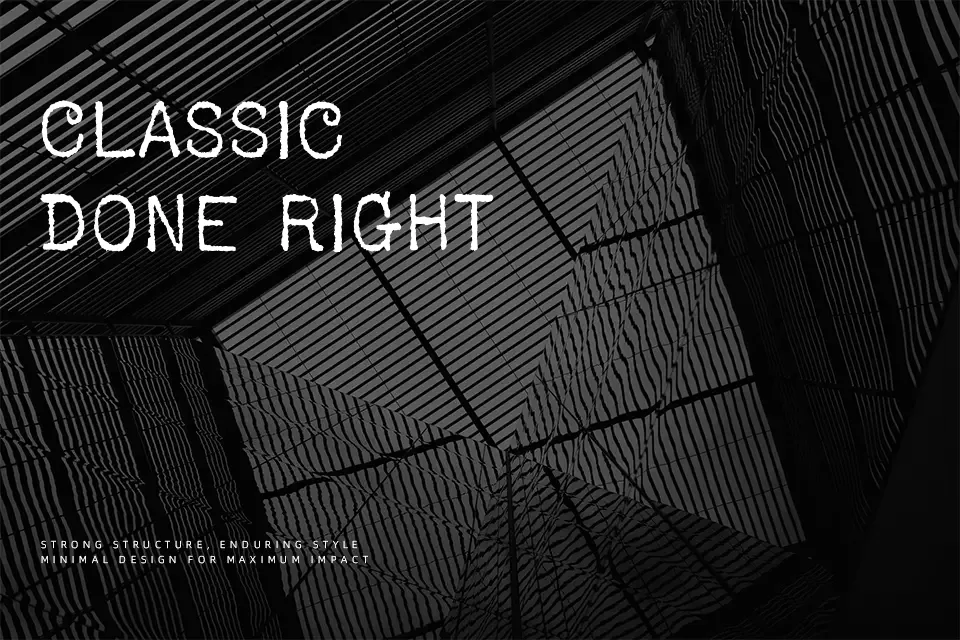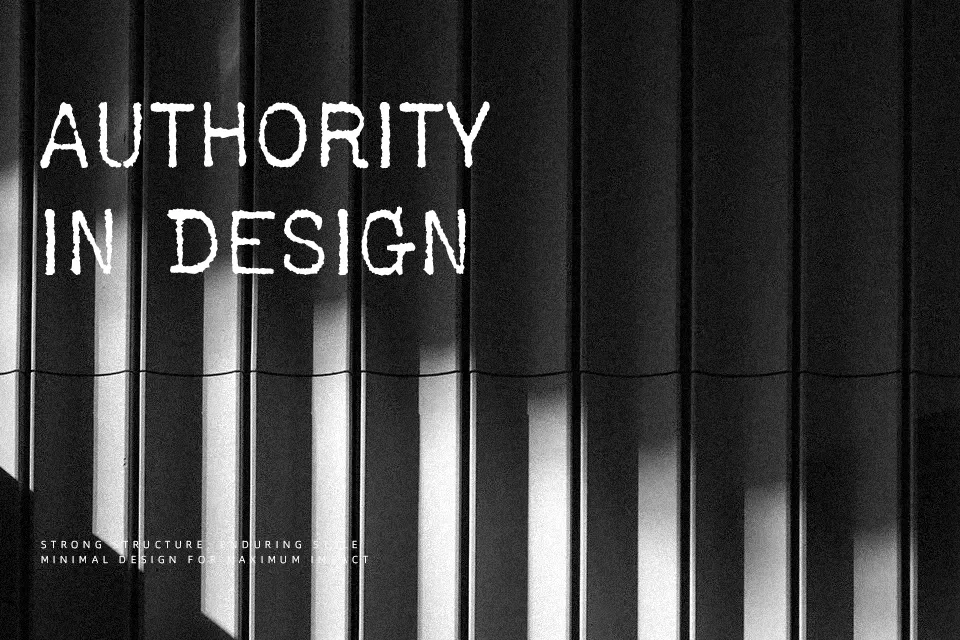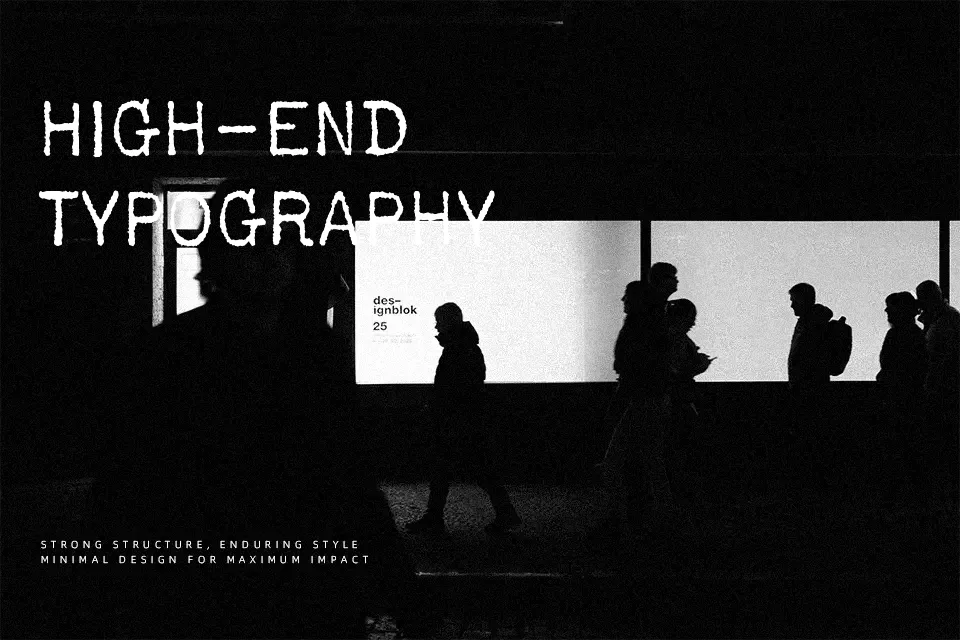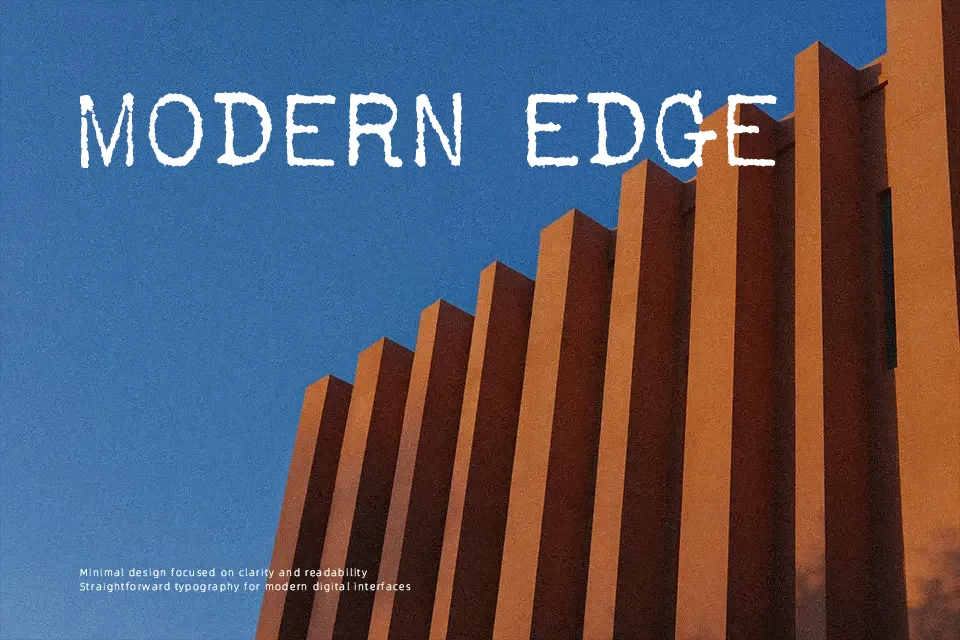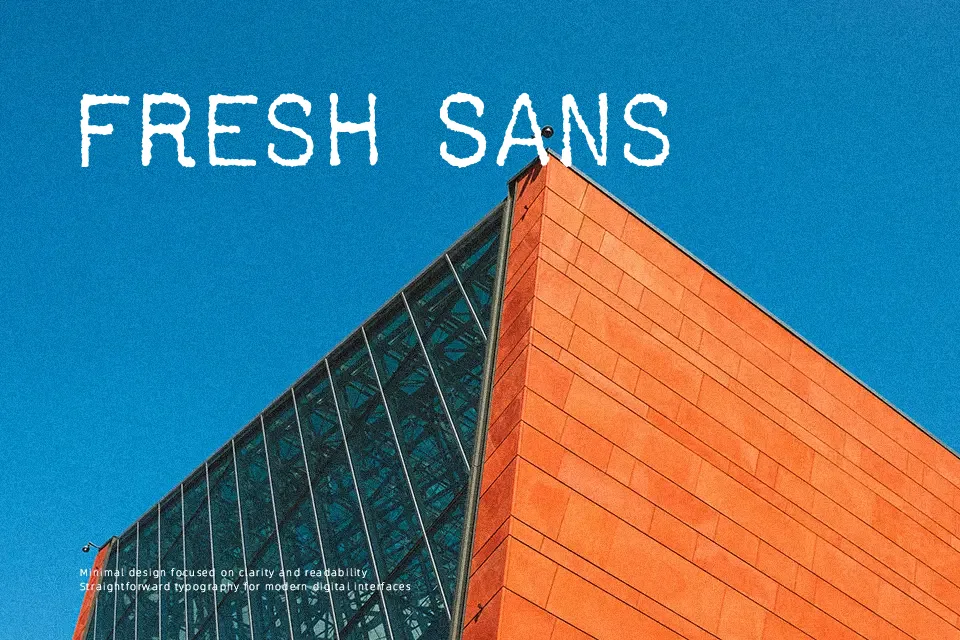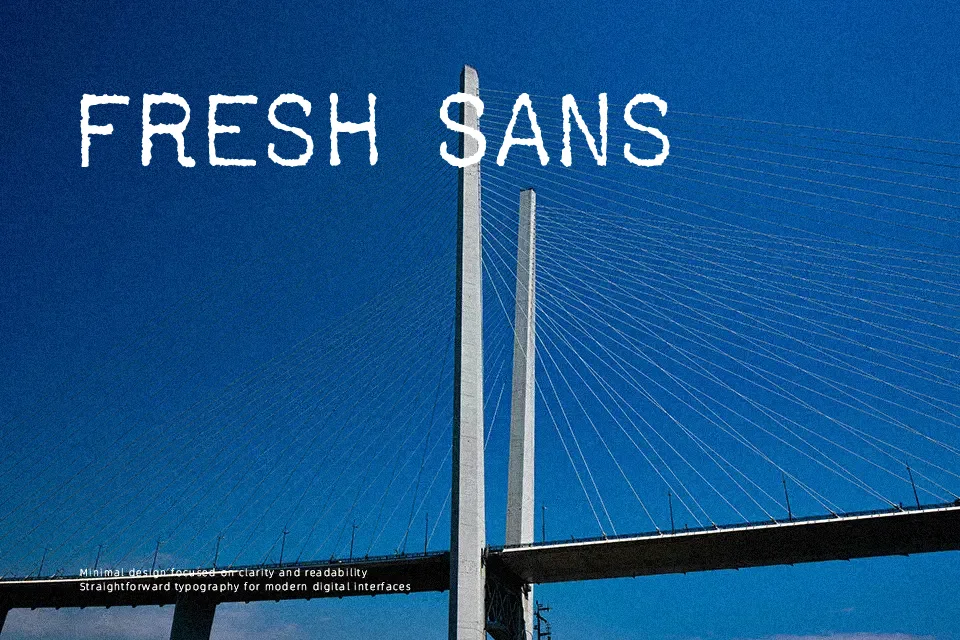
USIS 1949 Font
Designed by Lukas Krakora
USIS 1949 Font delivers a weathered typewriter style defined by blunt slab serifs, mechanical mono-width proportions, and textured, ink-bleed contours. Uneven stroke weights and rough outlines reproduce the tactile imperfections of mid-century mechanical typing, giving titles and short callouts genuine archival character. Character spacing remains relatively open to prevent adjacent distressed letters from merging, which helps maintain clarity in large headlines. However, the heavy distressing and irregular edges reduce comfort in continuous body passages, making the design far less suitable for dense body text. It excels primarily when deployed for vintage posters, retro packaging accents, and period multimedia titles.
Best For: vintage product packaging, historical movie title cards, retro editorial headlines, archival museum signage
Not Ideal For: continuous body text, mobile interface labels, legal contracts, dense technical manuals
Perfect for branding, editorial, and headline, with a classic and display style.